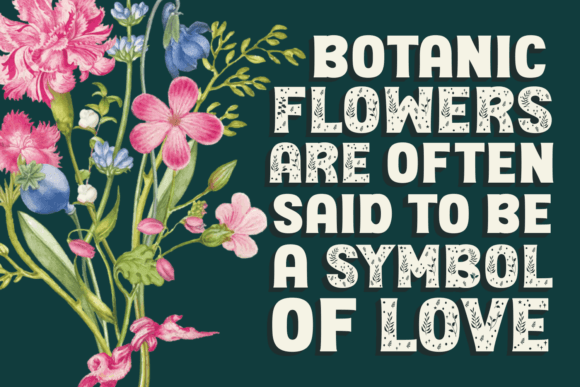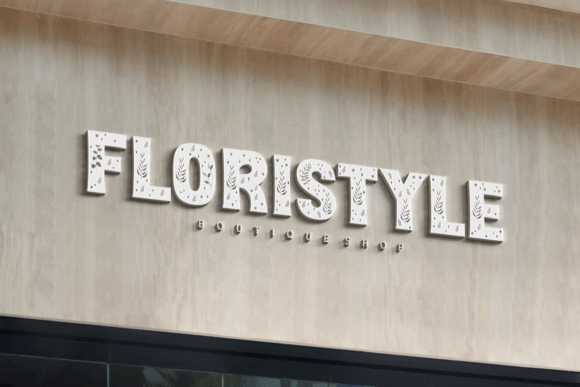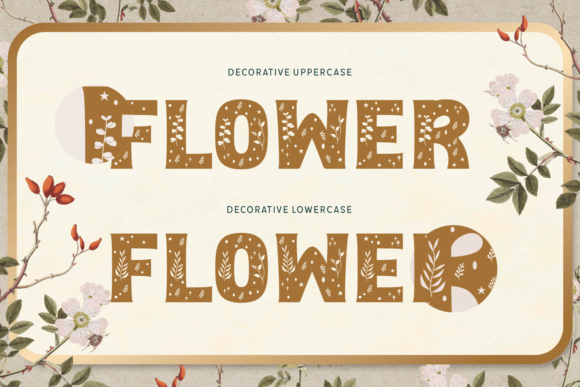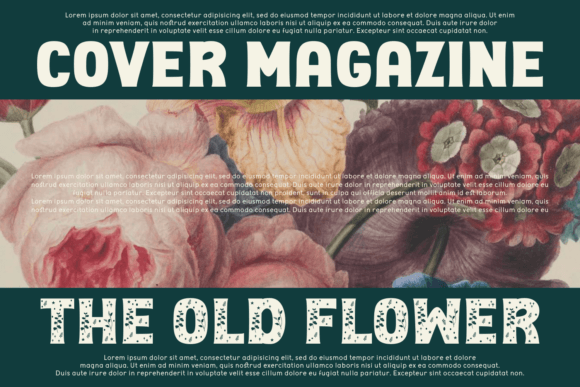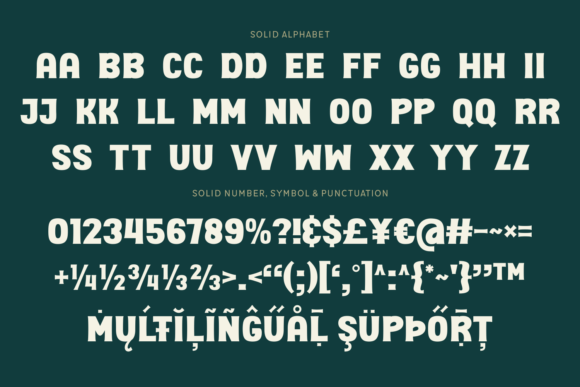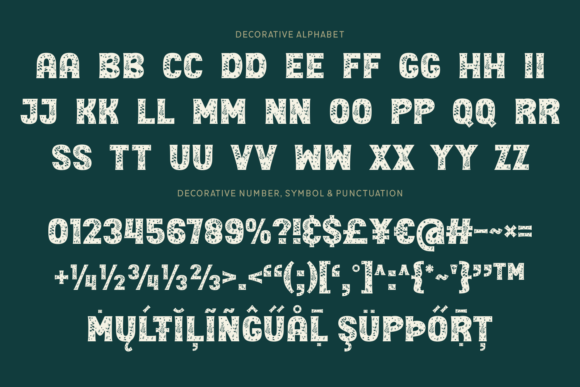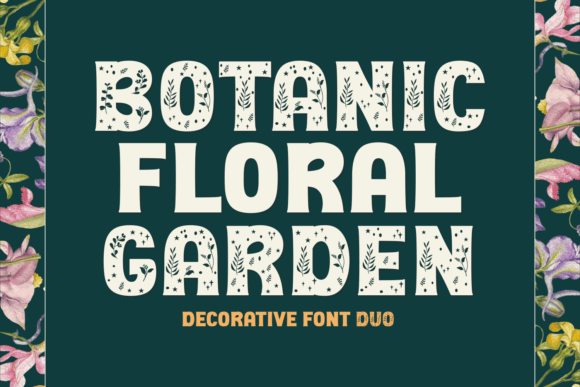
The Perfect Bloom: Discovering the Botanic Floral Garden Font
I’ll never forget the time I was working on a branding project for a local florist. I had all the design elements ready – the color palette, the logo concept, and the overall aesthetic – but I was stuck on finding the perfect font. I wanted something that would capture the delicate, natural beauty of flowers and bring a touch of whimsy to the design. That’s when I stumbled upon the Botanic Floral Garden font, and it was love at first sight! 💐
A Beautiful Decorative Font Duo
The Botanic Floral Garden font is a stunning decorative font duo that features delicate botanical elements, making it perfect for nature-themed projects. This font includes two versions – a solid and a decorative one – allowing you to mix and match to create a unique look. With its PUA encoding, you can easily access all the glyphs and get creative with your designs.
So, what do I love about the Botanic Floral Garden font? 🤔 Here are a few things that make it stand out:
- ✨ Delicate and intricate botanical elements that add a touch of elegance to any design
- ✅ Two font versions – solid and decorative – for maximum versatility
- ✅ Perfect for a variety of design projects, from branding and digital designs to paper crafts and fabric prints
As for quirks or limitations, there are a few things to keep in mind: ⚠️
- ⚠️ The font can be a bit overwhelming if you’re not used to working with decorative fonts, so take some time to get familiar with the glyphs and OpenType features
- ⚠️ Some of the more intricate elements might not display well at smaller font sizes, so be mindful of that when designing for different platforms
The Designer Inspiration Behind the Botanic Floral Garden Font
The Botanic Floral Garden font was designed with a passion for nature and a love for beautiful typography. The designer, inspired by the intricate details of botanical illustrations, created a font that would bring a touch of elegance and whimsy to any design. With its delicate floral elements and versatile font duo, the Botanic Floral Garden font is sure to inspire your next creative project!
| Q: What type of projects is the Botanic Floral Garden font best suited for? | A: The Botanic Floral Garden font is perfect for nature-themed projects, such as branding for florist shops, digital designs, paper crafts, fabric prints, and more. |